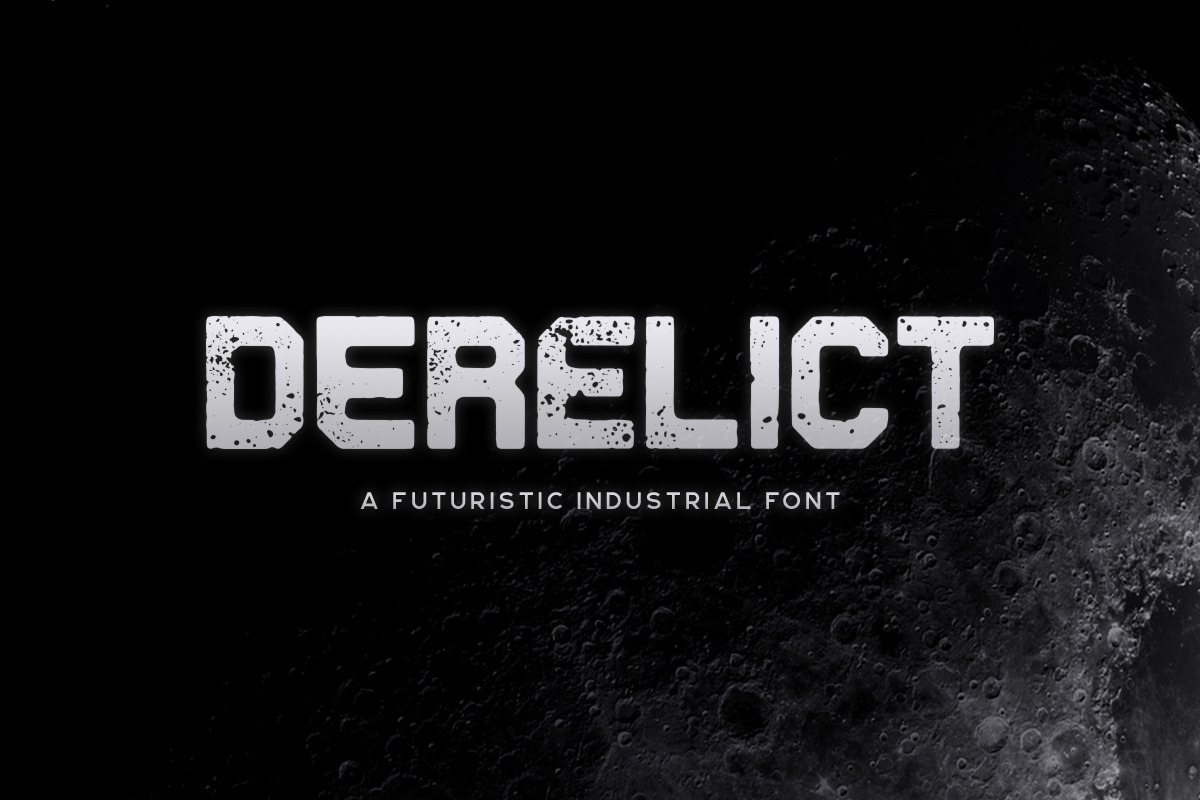
Derelict Typeface
Derelict is a futuristic industrial font family in rough and clean styles. It includes multilingual uppercase letters, alternate letters for some characters, numbers and punctuation.